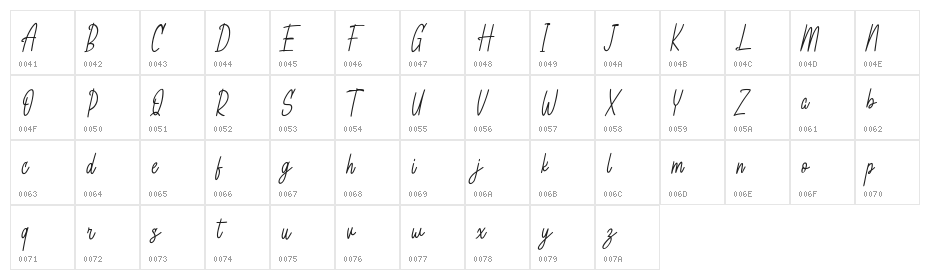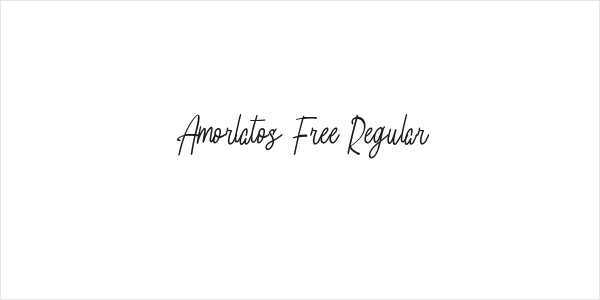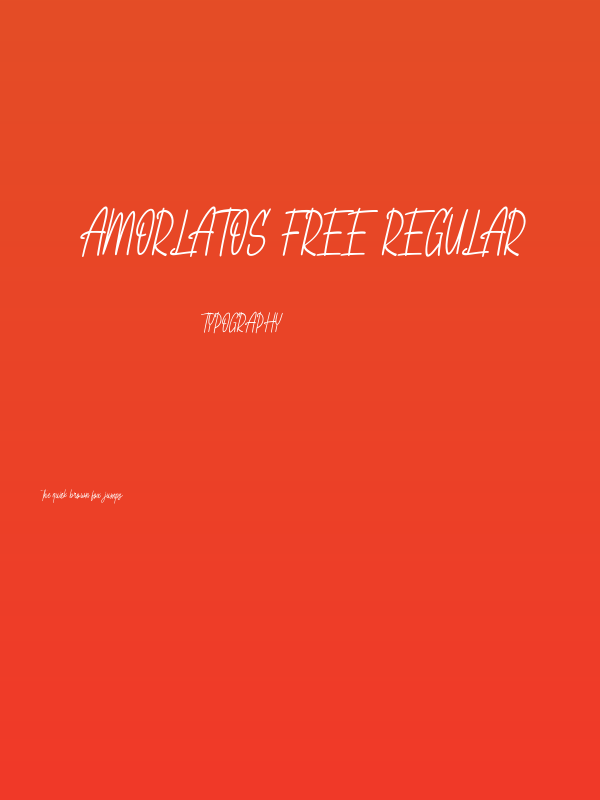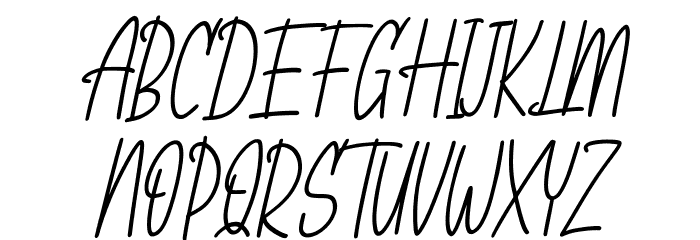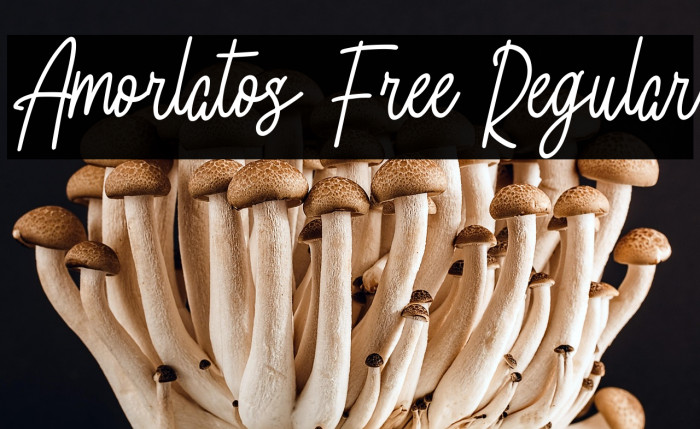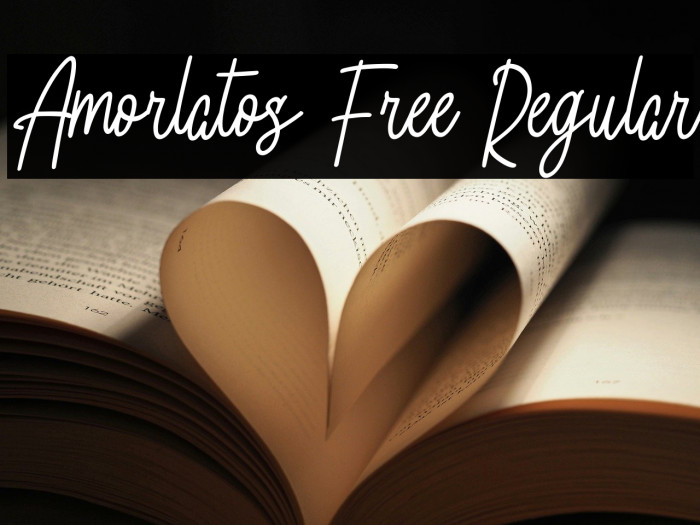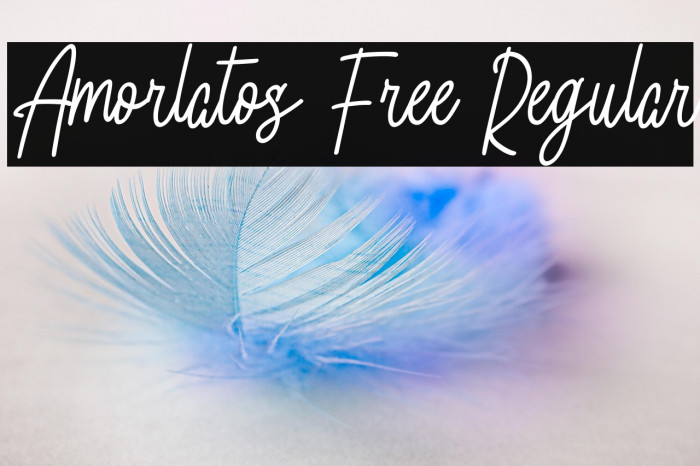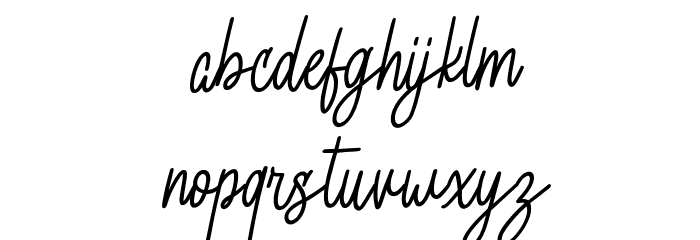
Amorlatos Free Regular Font
Amorlatos Free Regular Description
This font features a handwritten, cursive style with a modern flair. The letters are elegantly connected, giving it a fluid and dynamic appearance. The strokes are consistent in thickness, providing a harmonious look across all characters. Uppercase letters are slightly taller and more pronounced, while lowercase letters maintain a smooth flow. The overall design is both stylish and legible, making it suitable for various creative applications.
| Use Case | Logos, Invitations, Social Media |
| Proposed Projects | Ideal for wedding invitations, greeting cards, personal branding, and social media graphics. |